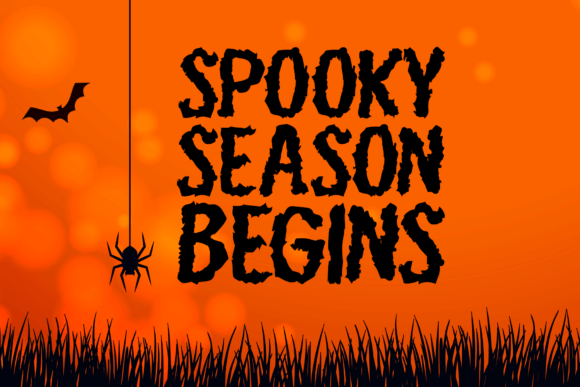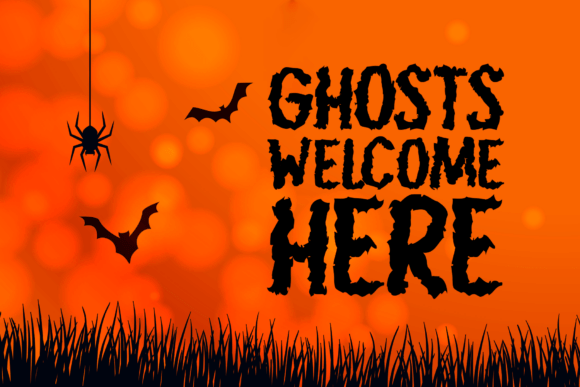
Bloody Screams Font: The Ultimate Typeface for Spooky-Themed Projects
Bloody Screams is a distinctive display font crafted for spooky-themed projects. Whether you’re designing for Halloween events, edgy branding, or horror media, this typeface delivers a dramatic, eye-catching look with haunting style. In this article, we’ll dive into the details of Bloody Screams Font, exploring its features, uses, and benefits for designers and crafters.
What Makes Bloody Screams Font Stand Out?
Bloody Screams Font is not just another typeface; it’s an experience. Its unique design is inspired by the eerie and the unknown, making it perfect for projects that require a bold and unsettling visual statement. The font’s irregularities and distressed texture give it a handmade feel, as if it’s been scrawled in blood on a creepy wall. This distinctive look is sure to grab attention and leave a lasting impression on your audience.
Key Features of Bloody Screams Font
- Distressed Texture: The font features a worn, distressed texture that adds to its eerie appeal.
- Irregular Letterforms: Each letter has a unique, irregular shape that gives the font its haunting style.
- High Contrast: The font’s high contrast between thick and thin lines creates a dramatic, eye-catching effect.
- Support for Multiple Languages: Bloody Screams Font supports multiple languages, making it a versatile choice for global projects.
Perfect for Spooky-Themed Projects
Bloody Screams Font is specifically designed for projects that require a spooky, horror-themed aesthetic. Here are some ideal use cases for the font:
- Halloween Events: Create eye-catching invitations, posters, and decorations for Halloween parties and events.
- Horror Media: Use Bloody Screams Font for book covers, movie posters, and video game titles to create a chilling atmosphere.
- Edgy Branding: Add a touch of darkness to your brand’s visual identity with Bloody Screams Font.
- Crafting and DIY Projects: Use the font to create spooky-themed crafts, such as Halloween cards, gift tags, and decorations.
Bloody Screams Font offers several benefits for designers and crafters, including:
- High-Quality Design: Bloody Screams Font is designed with high-quality, vector-based graphics, ensuring crisp and clear rendering at any size.
- Time-Saving: The font saves designers and crafters time and effort, providing a pre-designed solution for spooky-themed projects.
- Customizable: Bloody Screams Font can be customized to fit your project’s specific needs, allowing you to adjust the font size, color, and style.
Tips for Using Bloody Screams Font
To get the most out of Bloody Screams Font, follow these tips:
- Use it Sparingly: Due to its bold and attention-grabbing nature, use Bloody Screams Font sparingly to avoid overwhelming your audience.
- Pair it with Complementary Fonts: Combine Bloody Screams Font with complementary fonts to create visual interest and hierarchy.
- Experiment with Colors: Try different color schemes to enhance the font’s eerie effect, such as bold reds, blacks, and purples.
Bloody Screams Font is a powerful and eye-catching typeface designed specifically for spooky-themed projects. Its unique, distressed texture and irregular letterforms make it perfect for Halloween events, horror media, edgy branding, and crafting projects. With its ease of use, high-quality design, and customizability, Bloody Screams Font is an excellent choice for designers and crafters looking to add a touch of darkness to their work.